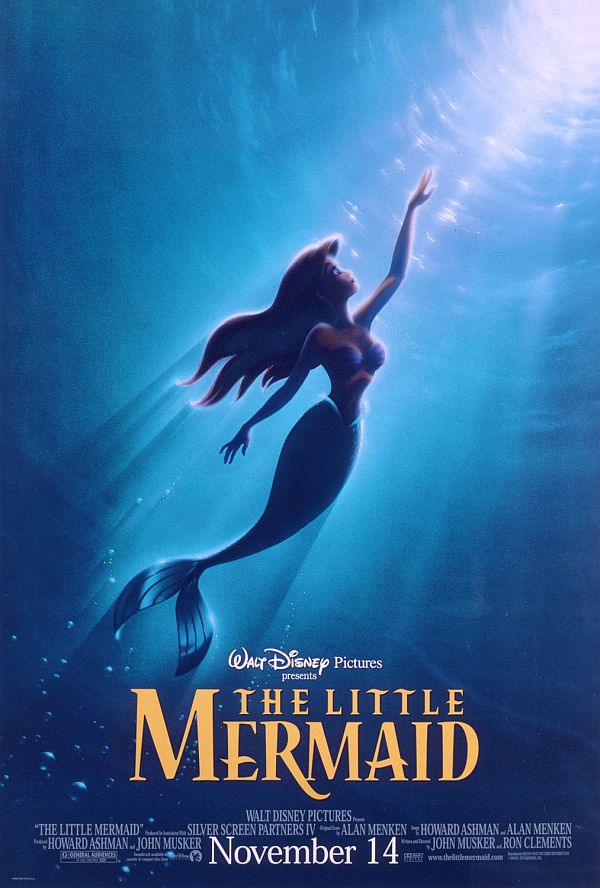
The Little Mermaid Font
FantasyThe Little Mermaid is a 1989 animated film by Disney, in which a mermaid princess named Ariel dreams of becoming human and falls in love with a human prince, striking a deal with a sea witch to make it happen. The film concludes with Ariel becoming human and marrying the prince, providing a happy ending.